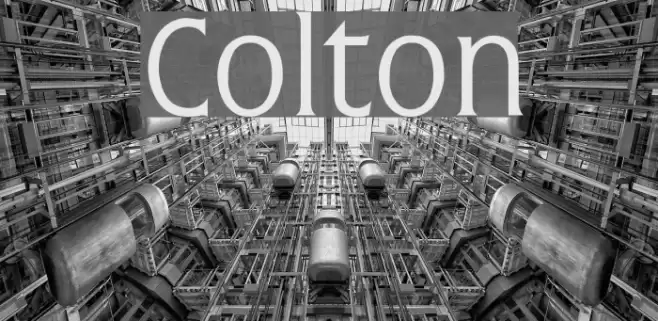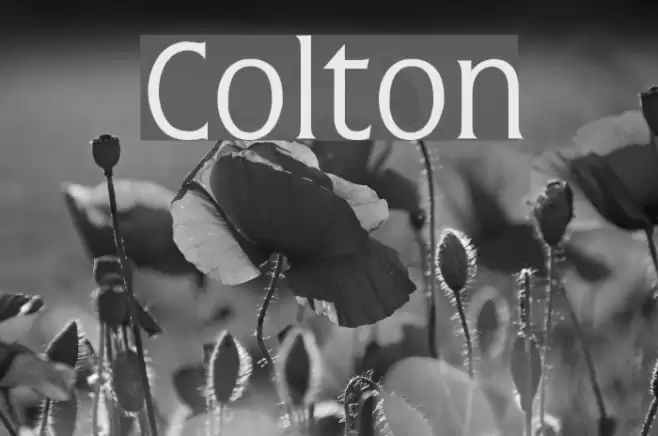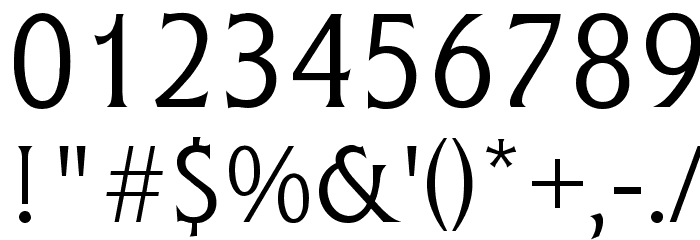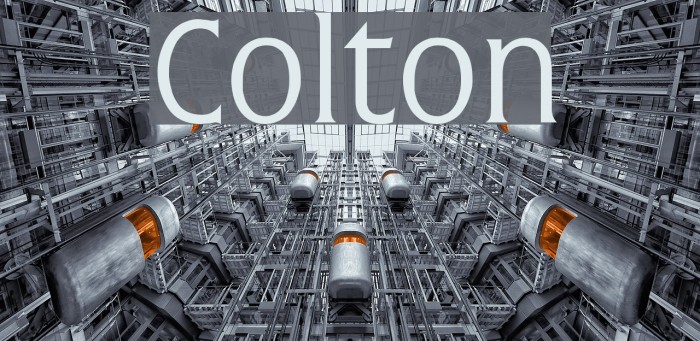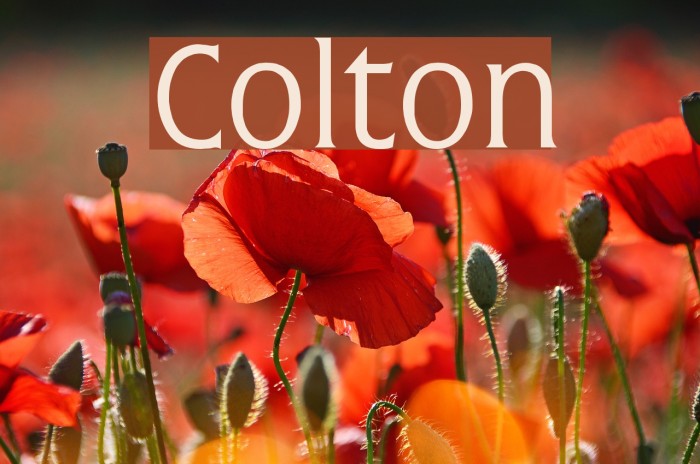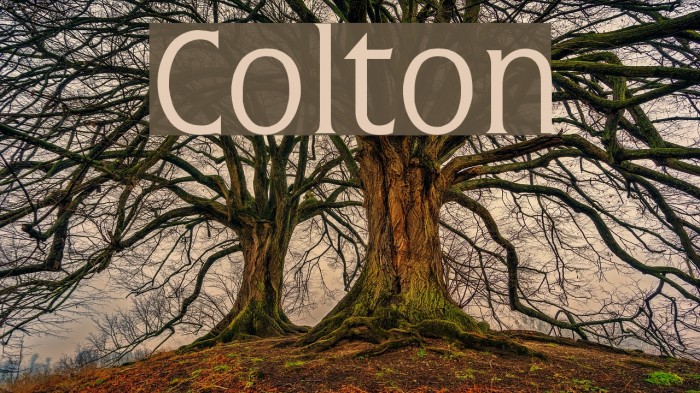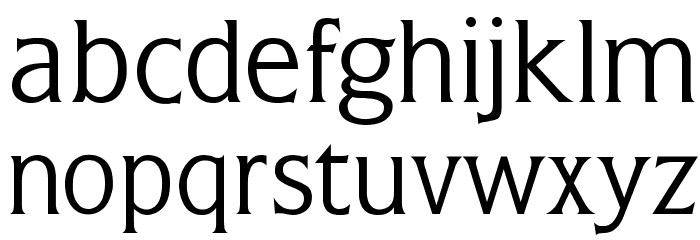
Colton Font
Colton Description
This font features a classic serif design with a modern twist, characterized by its elegant and refined letterforms. The uppercase letters exhibit a strong presence with slightly flared serifs, while the lowercase letters maintain a harmonious balance with smooth curves and consistent stroke widths. The numerals are clear and legible, making them suitable for a variety of applications. Special characters are well-integrated, maintaining the overall aesthetic of the typeface. The font's design is versatile, offering a timeless appeal that can enhance both traditional and contemporary projects.
A classic serif font with modern elegance and refined letterforms from Uncategorized fonts.
- Proposed Projects: Ideal for editorial design, book covers, branding, and formal invitations.
- Overall Style: Classic